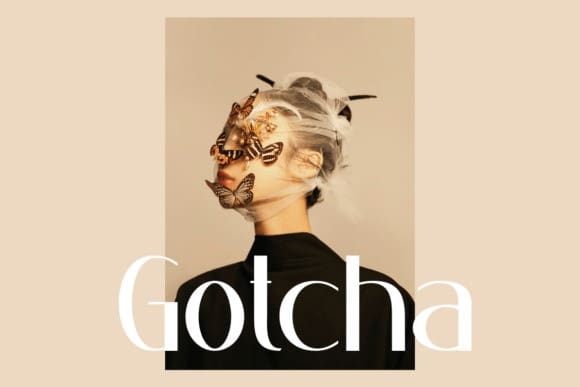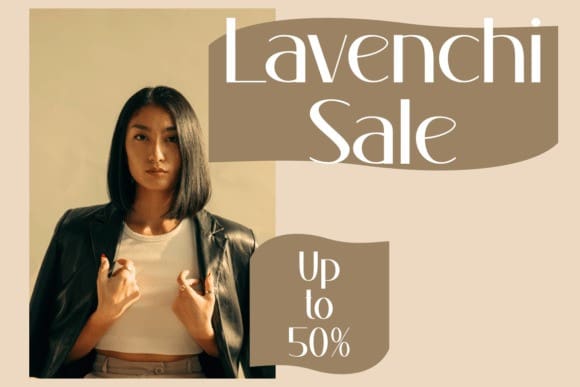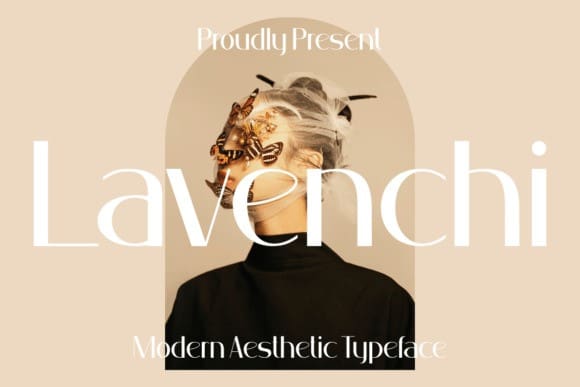
Lavenchi Font
Lavenchi Font is an authentic and unique modern serif font that is perfect for professional and product branding needs. This font is suitable for any branding project such as quotes, logos, blog headers, posters, ribbons, letters, invitations, stationery and more.